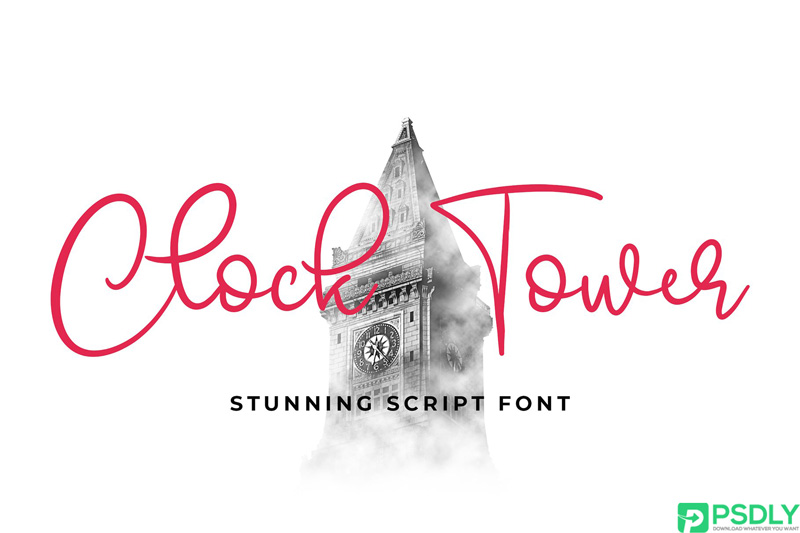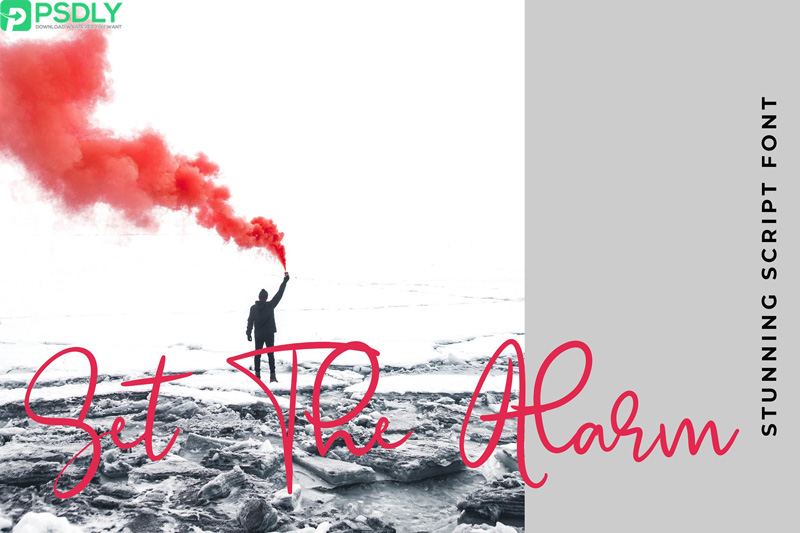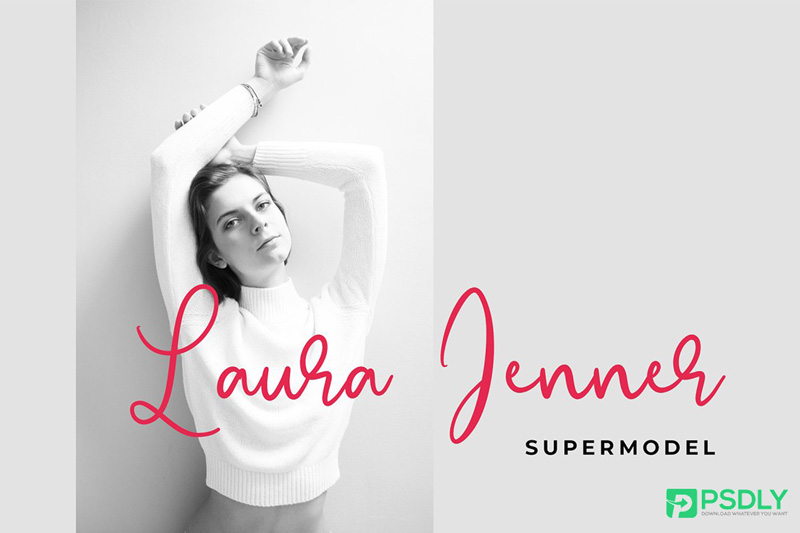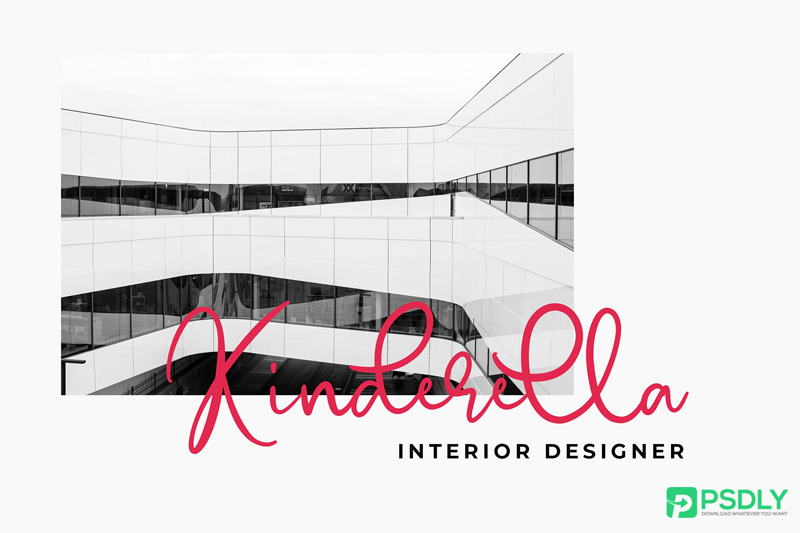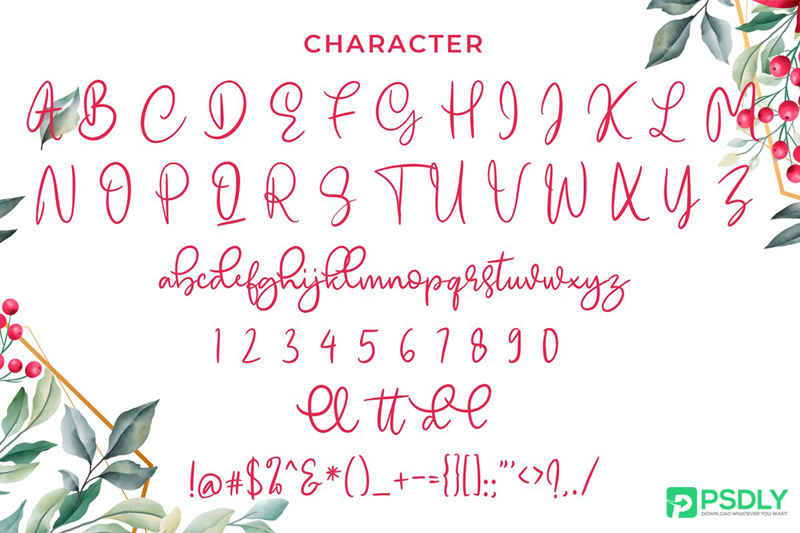
Emellyn Modern Calligraphy Font
Emellyn is a fantastic modern calligraphy font. It’s combining the classic style of calligraphy with a more modern style. This a paid font. But we are giving you this font totally free for personal use. This is a script font. You can use it multiple purposes like logo, wedding card, fabrics, T-shirts, labels, posters and much more.
• Ligature